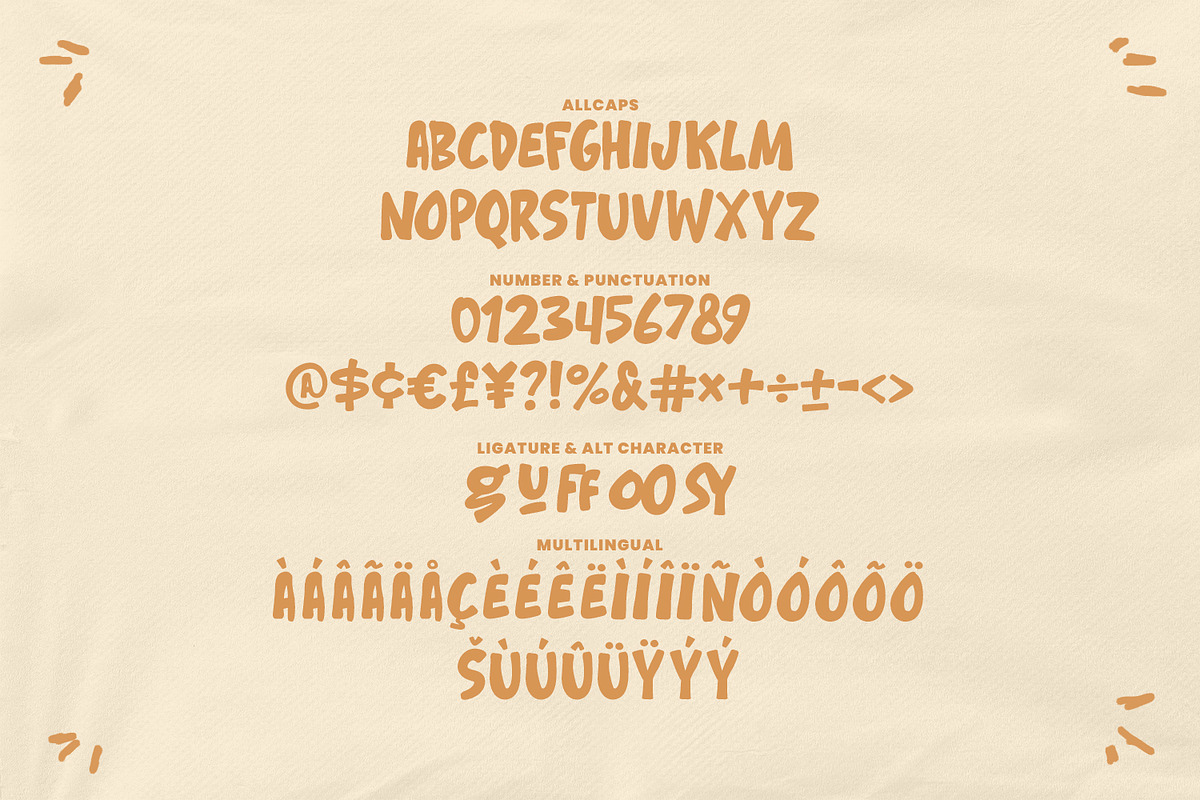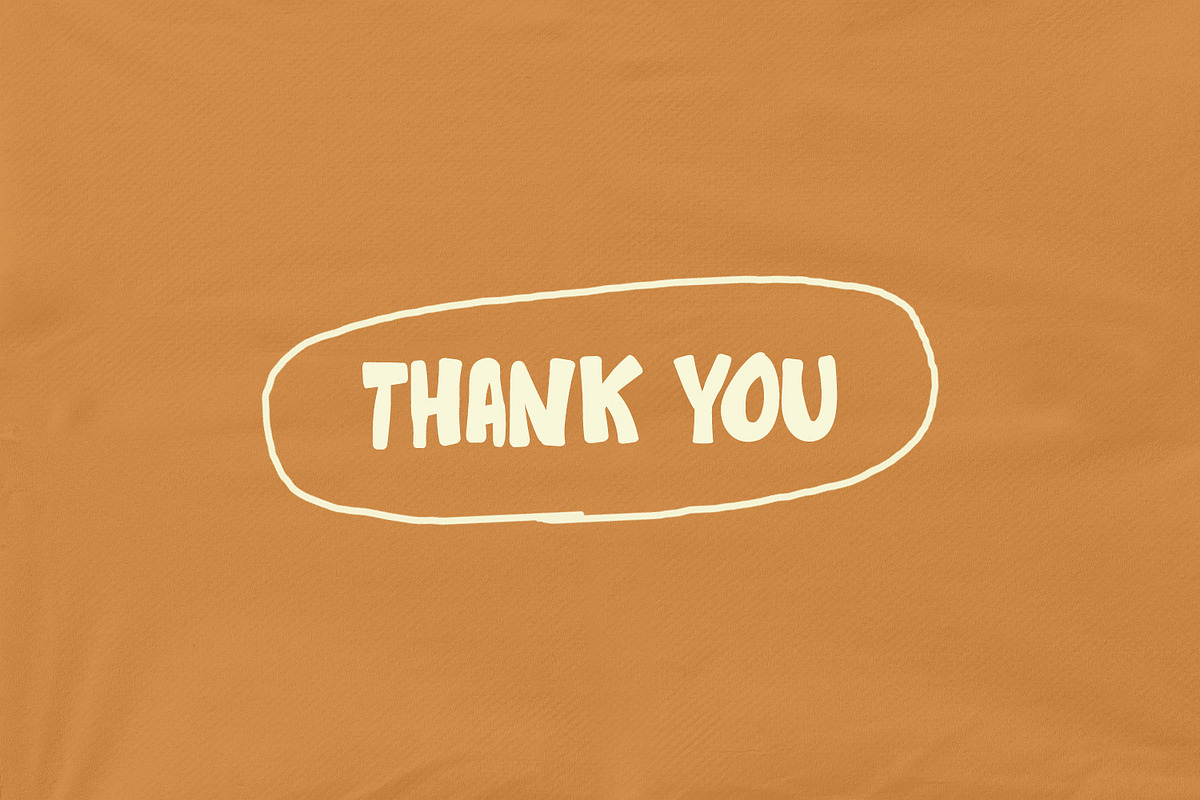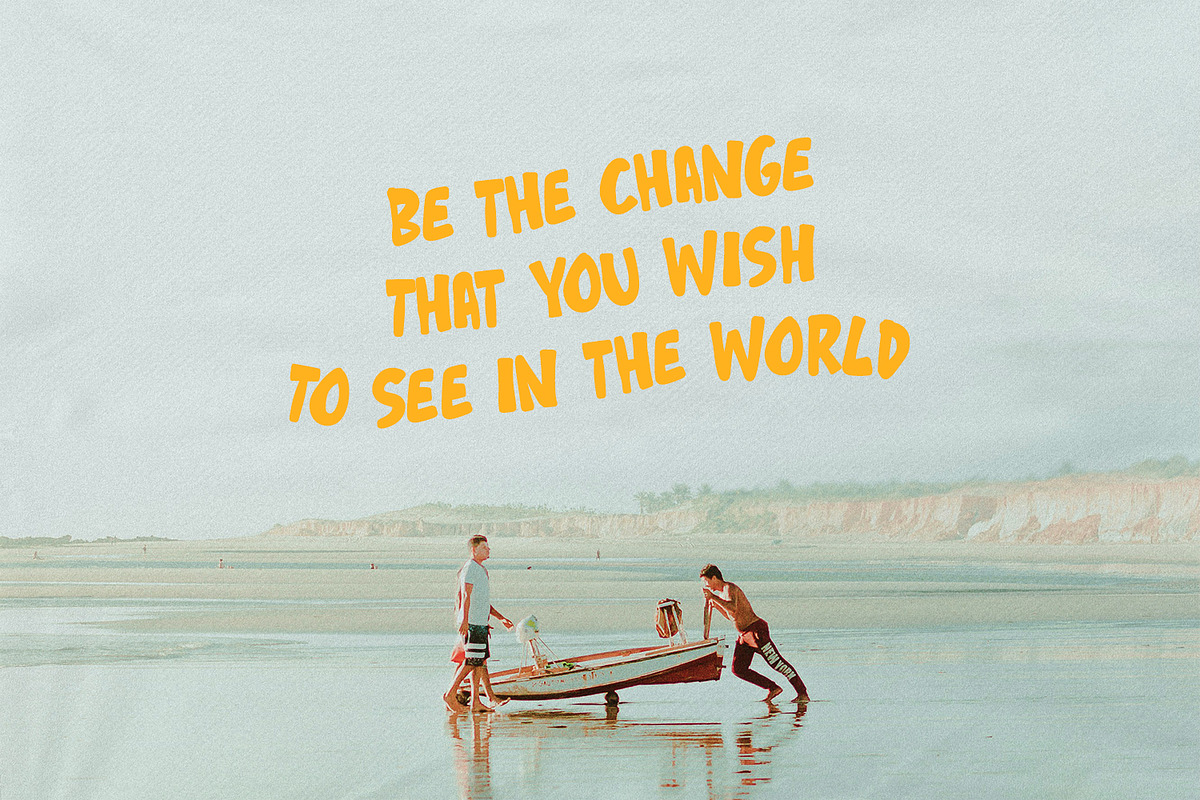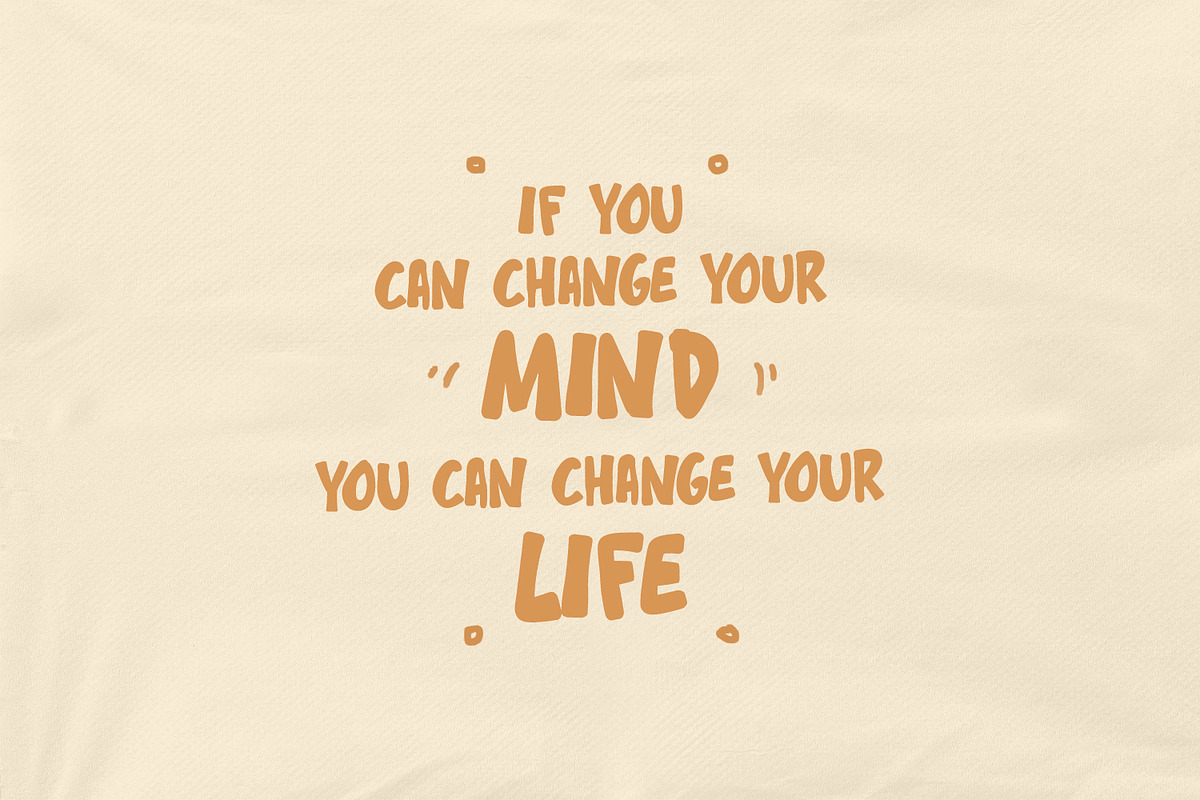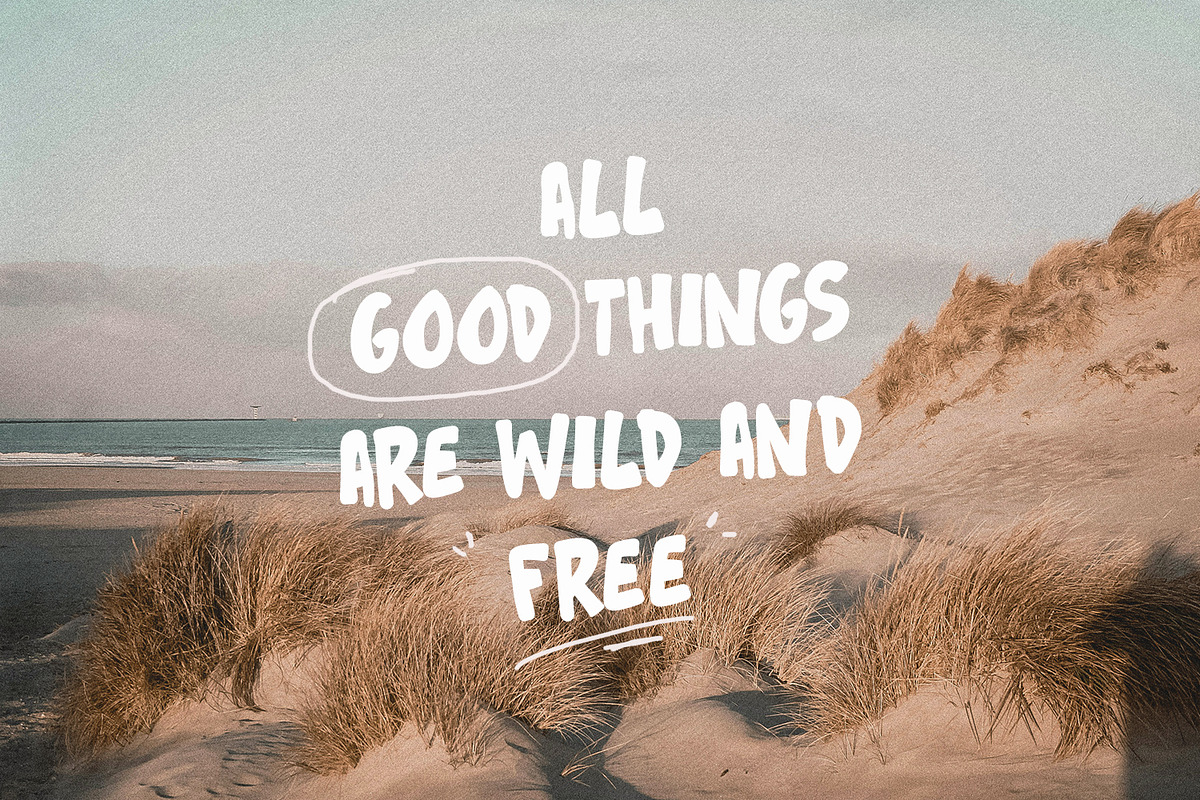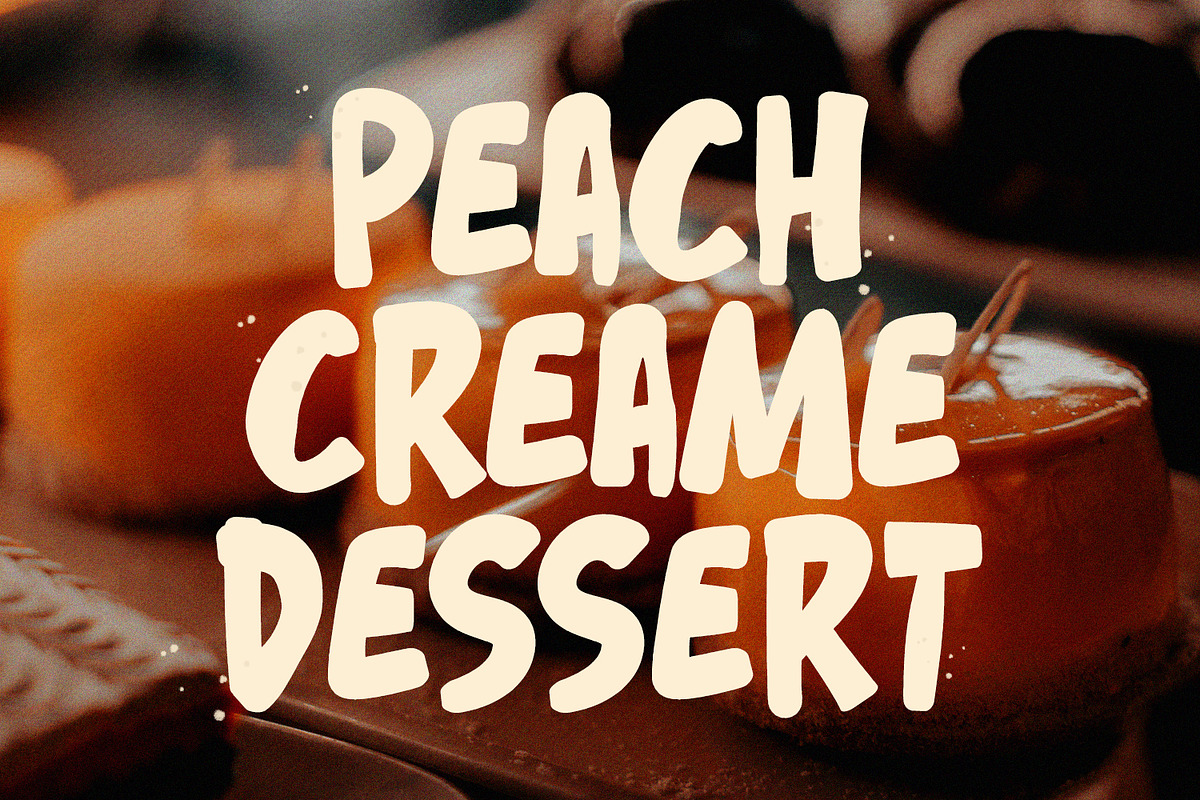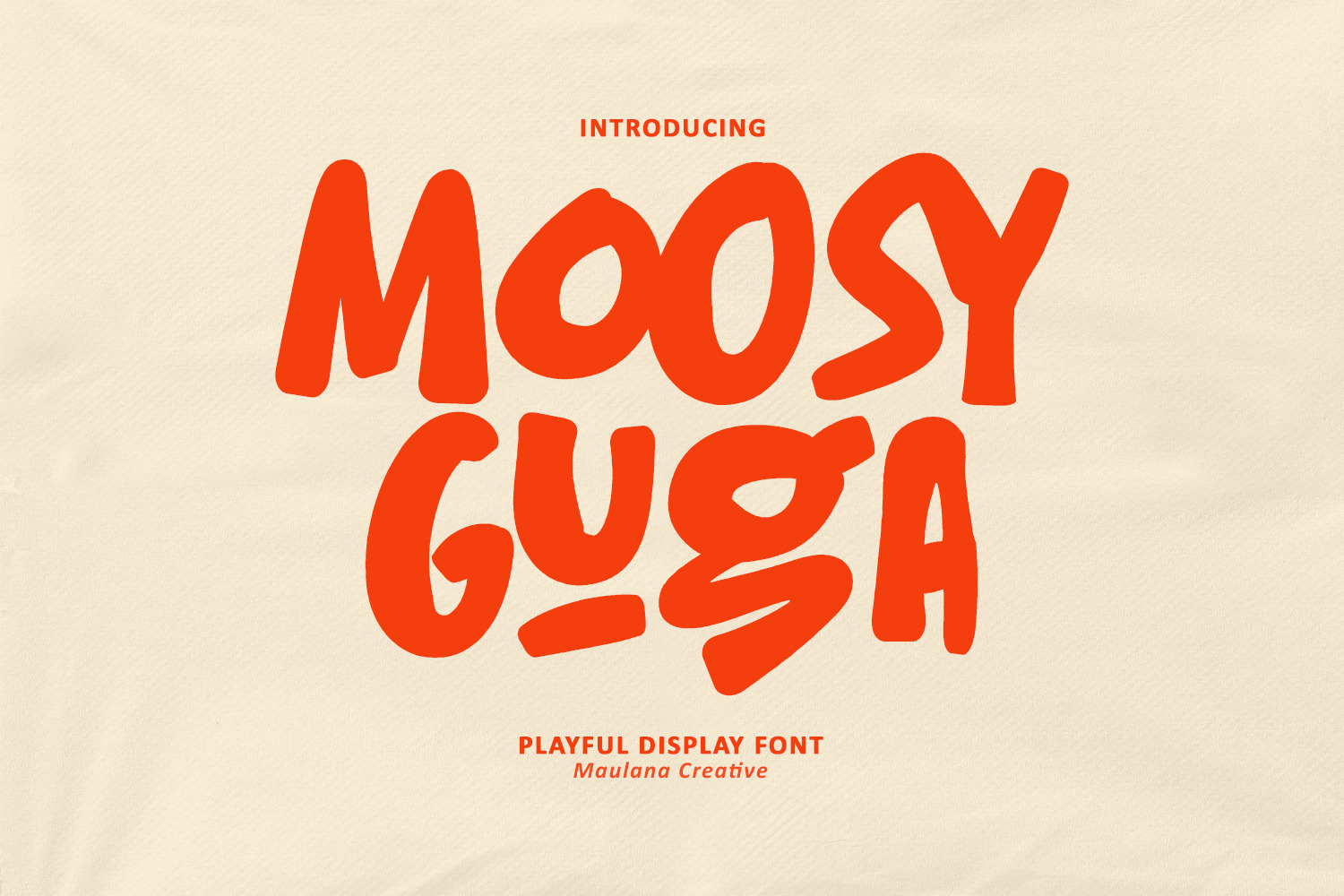
Moosy Guga Playful Display Font
Introducing Moosy Guga - The Ultimate Playful Display Font!
Dive into a world of fun and whimsy with Moosy Guga, a vibrant and bubbly display font that instantly adds character and charm to any project. Inspired by hand-drawn, chunky lettering, this font is designed to stand out and bring a smile to your audience's faces.
- Branding & Logos: Create memorable, friendly brand identities.
- Children's Designs: Ideal for books, toys, and educational materials.
- Packaging: Make your product labels pop off the shelf.
- Apparel: Design cheerful and trendy t-shirts and merchandise.
- Social Media & Quotes: Generate eye-catching graphics and quote images.
- Ligatures and Alternates